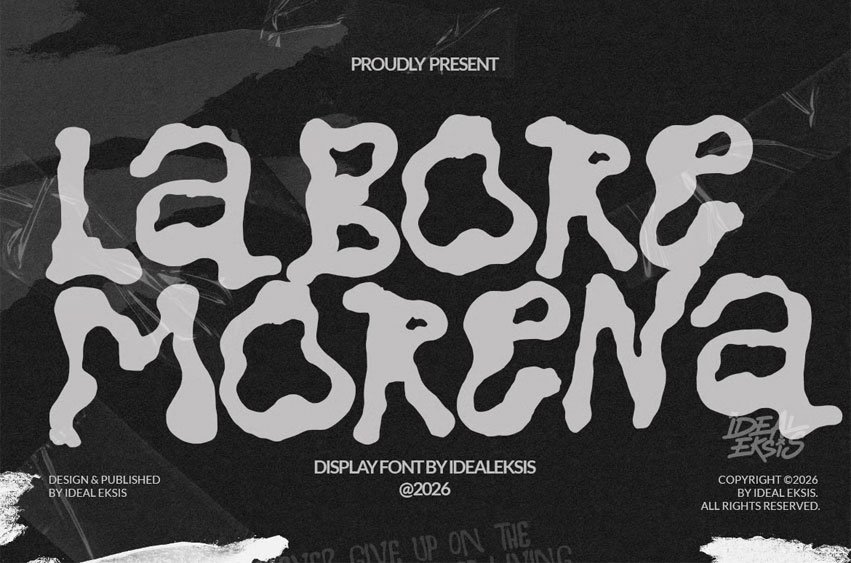
Labore Morena Font is a bold, wavy display typeface with an organic, distorted rhythm that exudes artistic energy. Its fluid, irregular letterforms create a sense of movement and texture, making the font feel both experimental and expressive.
The design’s raw, handcrafted aesthetic is perfect for creative branding, music or art posters, and projects that aim to stand out with a distinctive, avant‑garde personality